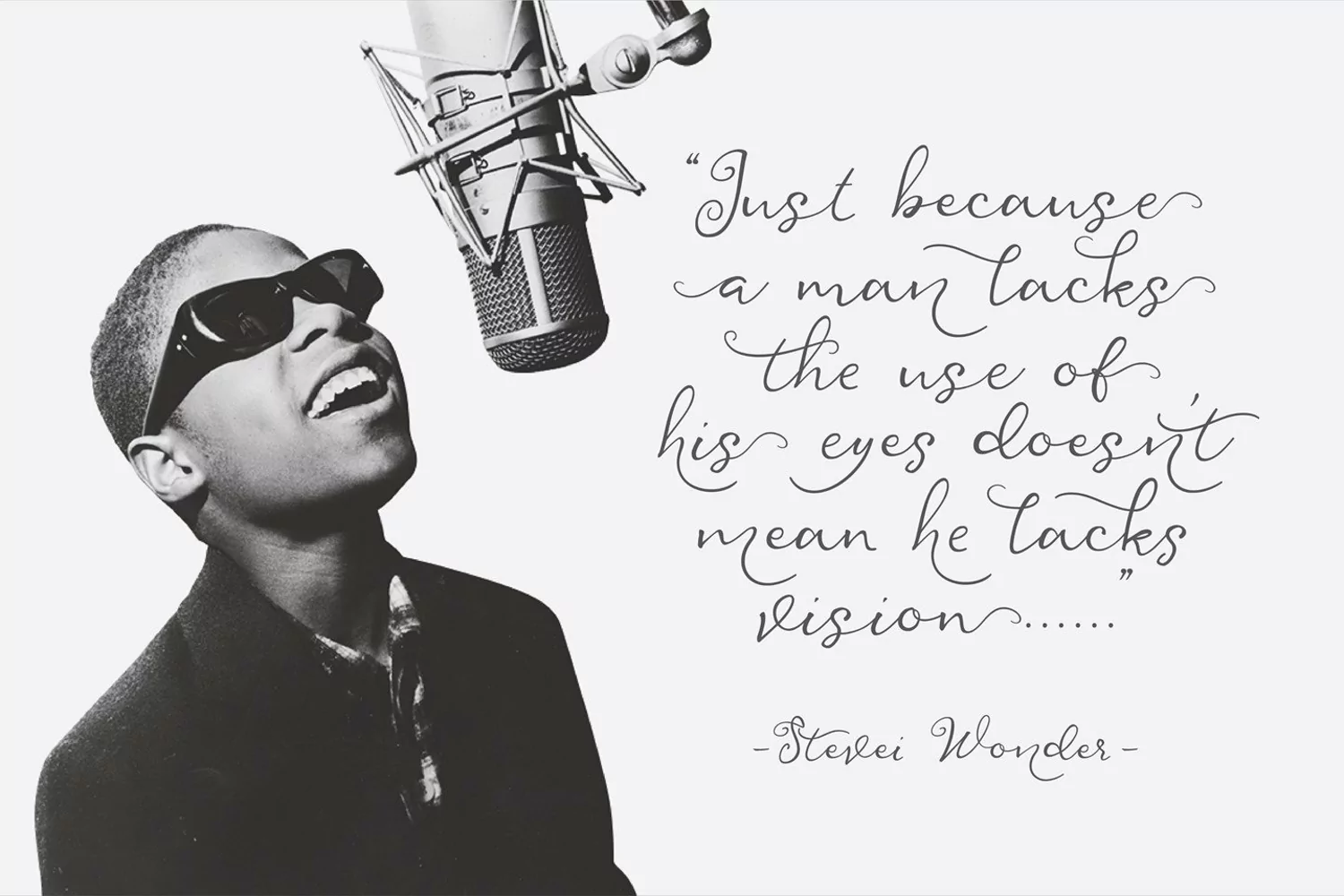
Still Wonder Script
Still Wonder Script - is a Fresh and modern font script with a handwritten calligraphy style, decorative characters, and a dancing baseline! So beautiful on the invitation like greeting cards, branding materials, business cards, quotes, posters, and more!
- Initial Alternates
- Contextual Alternates
- Standard Ligatures
- Unique ligatures
- Stylistic Alternates
- Stylistic sets
- Basic Latin A-Z and a-z
- Numbers
- International Symbols Support